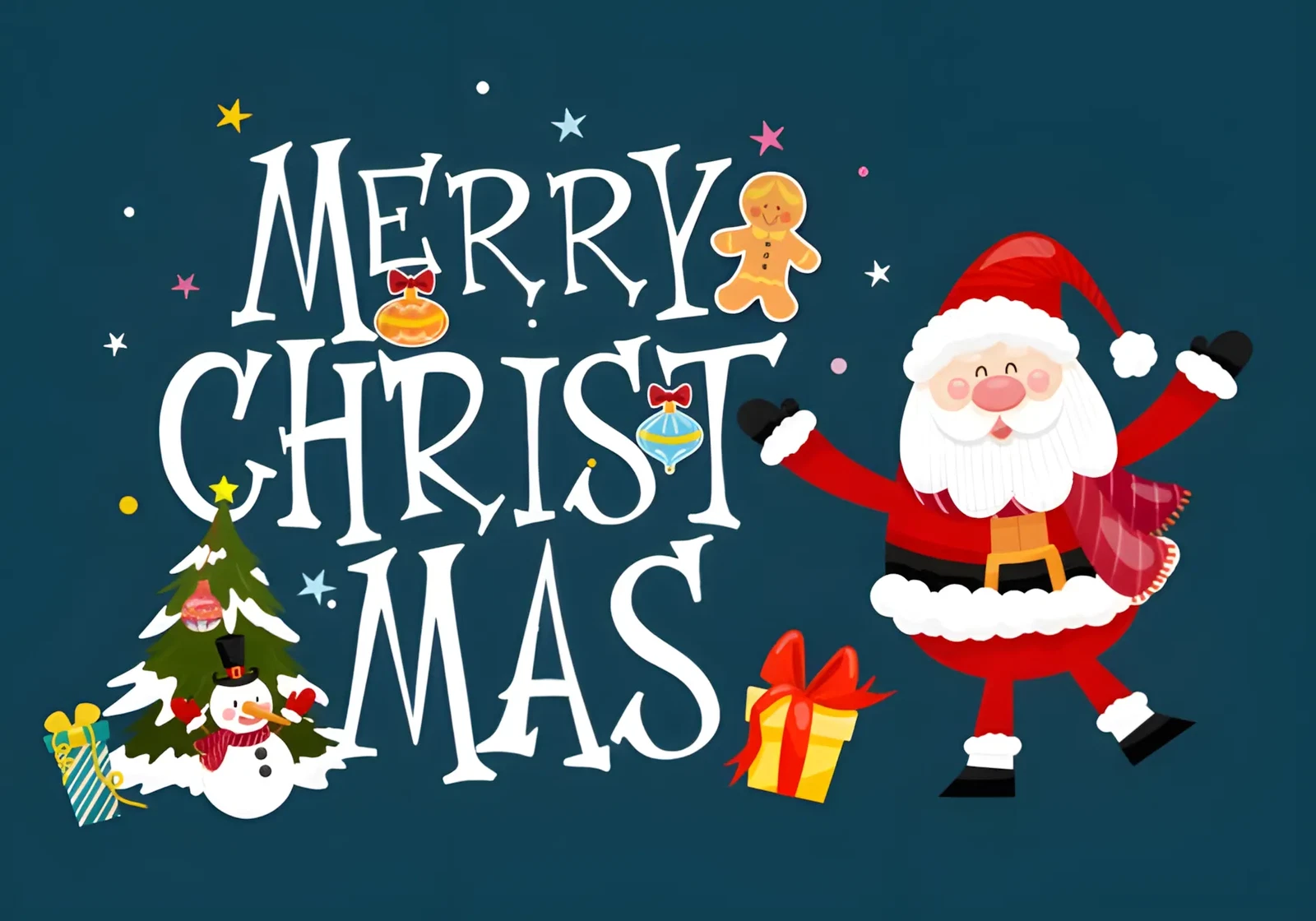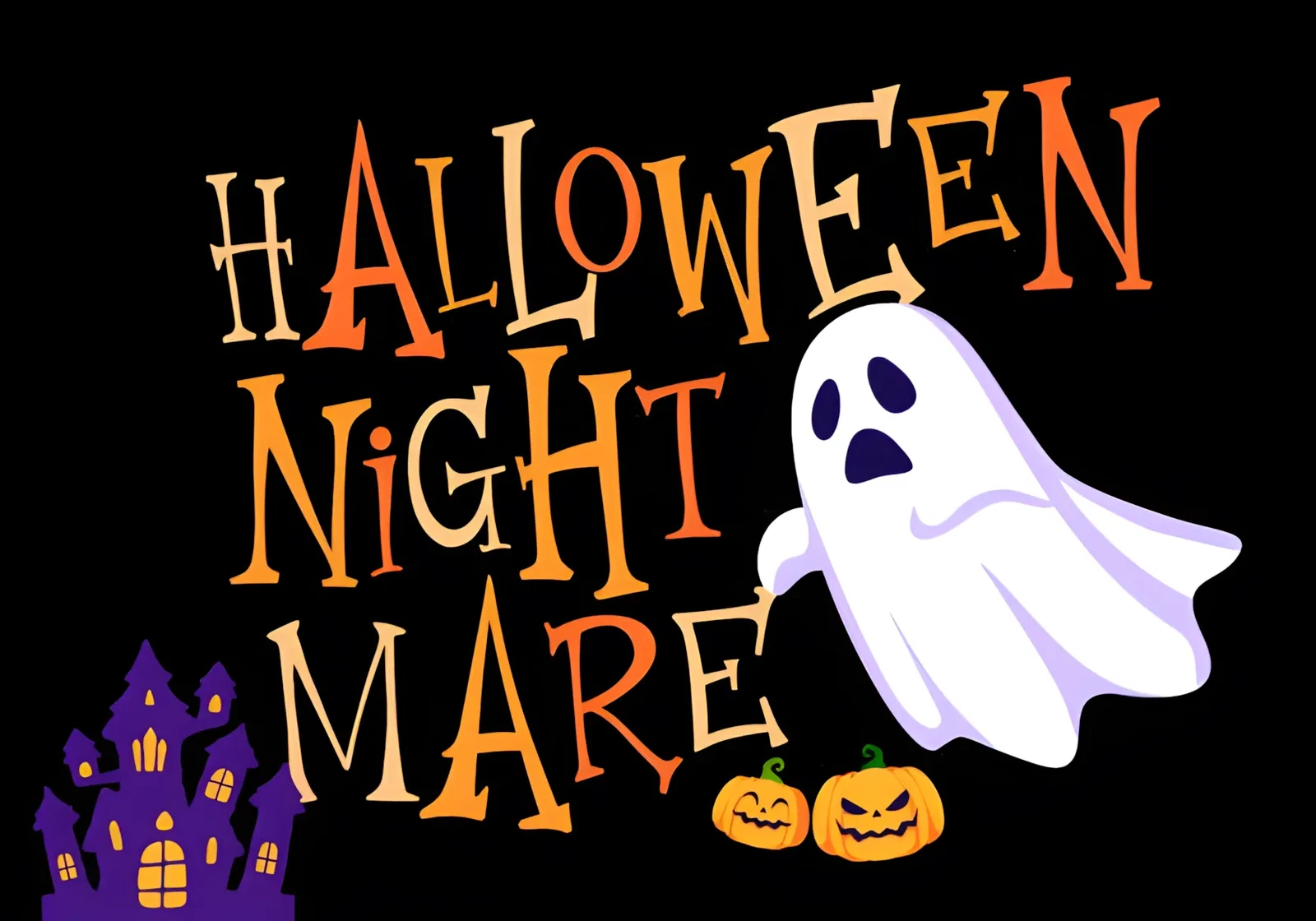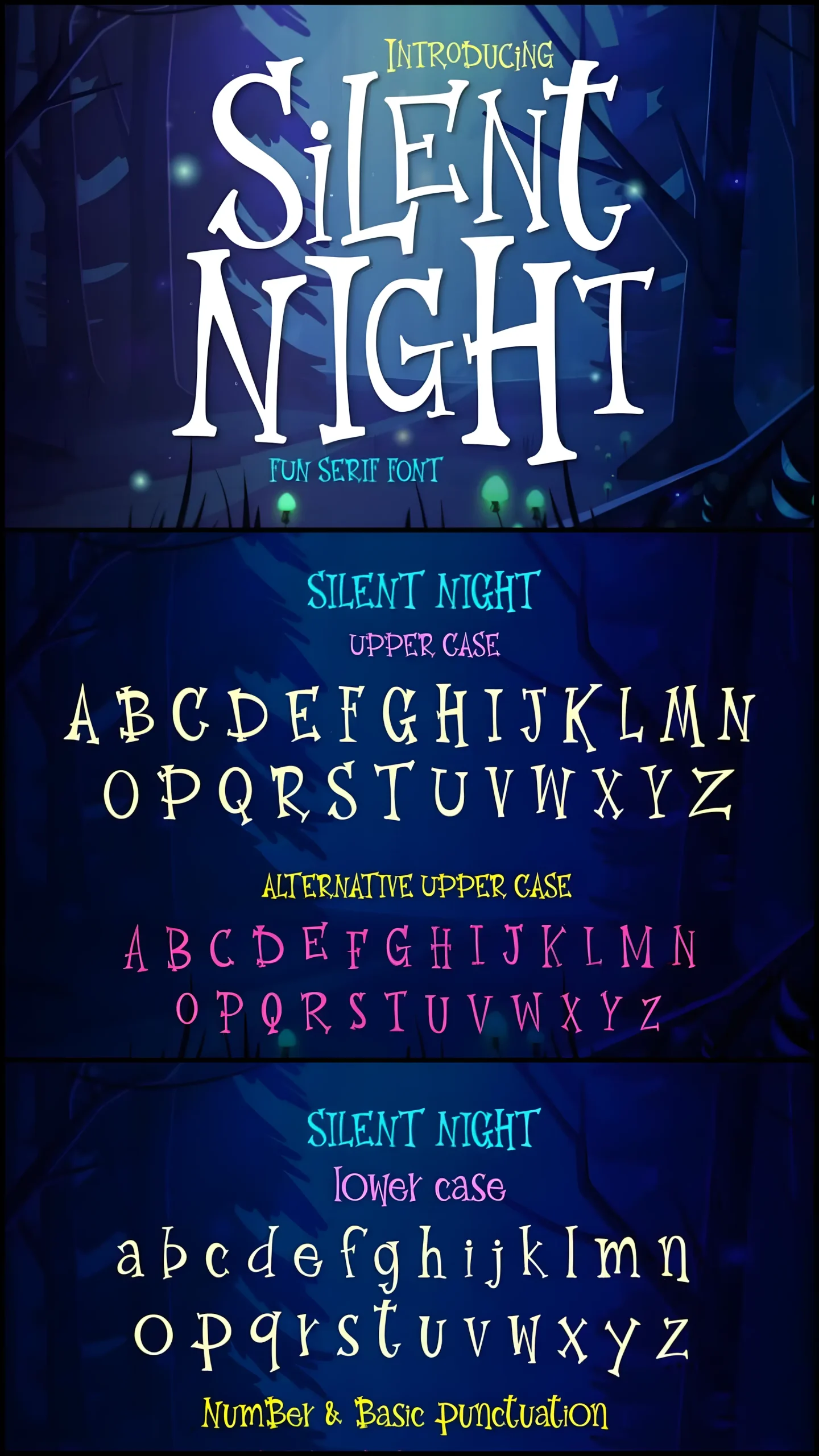
Some fonts catch attention because they’re loud and flashy. Others work quietly, boosting a design’s emotional tone without pulling focus. Silent Night Font belongs to the second group — it doesn’t scream for attention, but the moment it’s placed on a headline or greeting card, the atmosphere immediately shifts.
This typeface feels like crisp winter air and soft evening glow — exactly the kind of visual voice needed for holiday projects, festive branding, seasonal invitations, and creative designs that call for warmth and personality. It’s not generic, not overdone, and definitely not boring.
First Impressions: Balanced, Warm, Seasonal
Right from the first time placing Silent Night onto a layout, its strength becomes clear: the design feels intentional. Rather than leaning into overly decorative flourishes that just distract, this font communicates mood in a way that feels controlled and sophisticated.
The letterforms carry subtle charm without losing clarity. That’s a big deal, especially for decorative fonts created for seasonal content — many end up either too ornamental (and hard to read) or too plain (and unmemorable). Silent Night manages the middle ground beautifully.
It feels like a font designed with purpose, not just for a quick holiday styling.
Versatility in Seasonal Projects
What makes Silent Night genuinely useful is how it behaves across a variety of design scenarios. It doesn’t just look “festive” — it feels appropriate in each application.
Holiday Greeting Cards and Invitations
The first use case where this typeface shines is in text meant to feel like a message. On Christmas cards, winter party invites, or holiday greetings, the font’s curves and shapes bring a personal touch — almost handwritten, but cleaner and more consistent.
On invitations, it conveys celebration without feeling over the top. It feels warm, like a friendly seasonal greeting rather than a loud advertisement.
Seasonal Posters and Banners
In poster design, especially those promoting Christmas markets, school plays, community events, or holiday concerts, typography needs to work on two levels:
- grab attention
- communicate theme and tone
With Silent Night, headlines have enough character to draw the eye, and the decorative elements stay subtle enough not to compete with supporting visuals.
Social Media Graphics
Digital screens change everything: typefaces must remain readable at various sizes and contrast levels. This font handles that gracefully. On Instagram and Facebook banners, it remains clear and expressive — without losing its seasonal vibe.
The shapes stay distinct even on smaller screens, which is essential for holiday promos, event ads, and festive posts.
Packaging and Merchandise
Seasonal merchandise design — from mugs and gift tags to wrapping paper and apparel — benefits from typefaces that feel designed, not slapped together. Silent Night elevates packaging with a festive yet refined style that doesn’t rely on clip art or cliché icons.
The typeface fits beautifully on product labels where emotion and aesthetics matter, and it doesn’t lose personality in monochrome or color designs.
Readability Meets Expression
Many decorative fonts struggle to maintain readability once you move beyond headline sizes. Silent Night avoids that trap. It keeps letter spacing and form so balanced that even medium-sized text holds up well.
This makes it not just a one-off festive headline choice, but a practical selection for:
- subheadings
- callouts
- event details
- greeting text
It’s expressive enough to convey festive charm, but structured enough to read easily.
Aesthetic Character Without Overpowering
One of the strongest qualities of Silent Night is that it adds atmosphere without taking over the whole design. It works well with minimal layouts as well as rich compositions.
That’s a real advantage, because some themed fonts force a look that designers then have to build everything around. Silent Night, by contrast, lets the rest of the design play its part as well. It enhances without dominating.
This aesthetic balance makes it useful not just for holiday projects, but for year-end branding, seasonal newsletters, festive event materials, church programs, and even winter sales promotions.
Pairing It With Other Typefaces
Because Silent Night has personality, it’s best used as a display font — that is, for headlines, titles, and focal text. For body text and supporting information, pairing it with clean and neutral fonts helps maintain both style and readability.
A few effective combinations:
- Silent Night (headlines) + simple sans (body text)
- Silent Night + modern serif (subheadings)
- Silent Night + geometric sans (informational graphics)
These combinations let the decorative tone exist where it matters most, without creating visual clutter.
It brings just enough seasonal warmth and expression to enrich designs without turning them into cliché holiday visuals. Whether crafting greeting cards, digital banners, event posters, or festive packaging, this typeface brings tone and presence in a way that feels intentional and refined.
For anyone working with winter or holiday themes — especially around Christmas — Silent Night is a reliable and expressive choice that enhances the emotional tone of your designs while staying practical and readable.